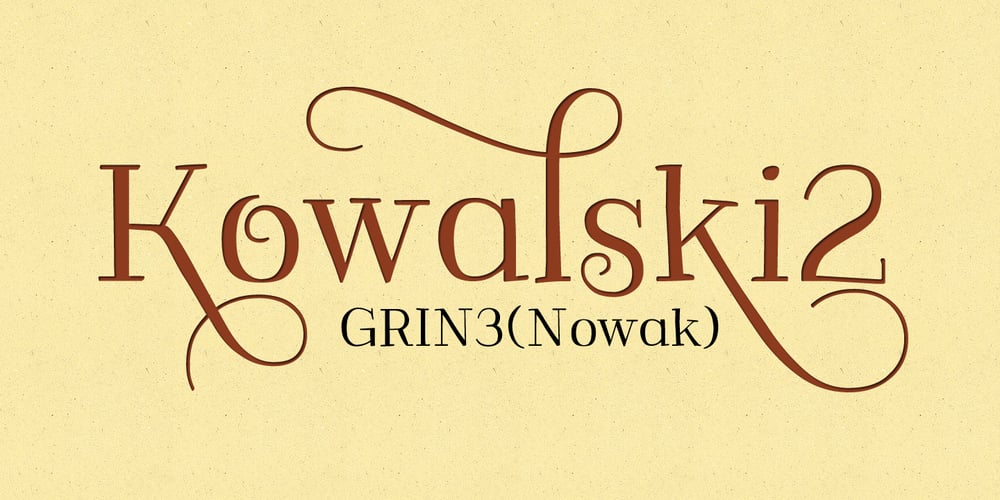
Kowalski2
Kowalski2 font
Kowalski2 Font Family was designed by Bartek Nowak and published by GRIN3 (Nowak). Kowalski2 contains 5 styles and family package options. Kowalski2 is a decorative, serif, hand-drawn font. It can be used for invitations, greeting cards, posters, advertising, weddings, books, menus etc. The inspiration came from the beautiful font Desire designed by Charles Borges de Oliveira. Kowalski2 Pro is the most complete style, it contains all the alternates and ligatures. To get the alternate glyph just add “+“, ”=” or “*” before the letter in any OpenType savvy application or manually select the characters from Glyph Palette. Kowalski2 Basic has the basic character set with 345 glyphs and no alternates. Kowalski2 A, Kowalski2 B and Kowalski2 C have less glyphs than the Pro one, they only contain some selected alternates and ligatures. Language support includes Western, Central and Eastern European character sets, as well as Baltic and Turkish languages.